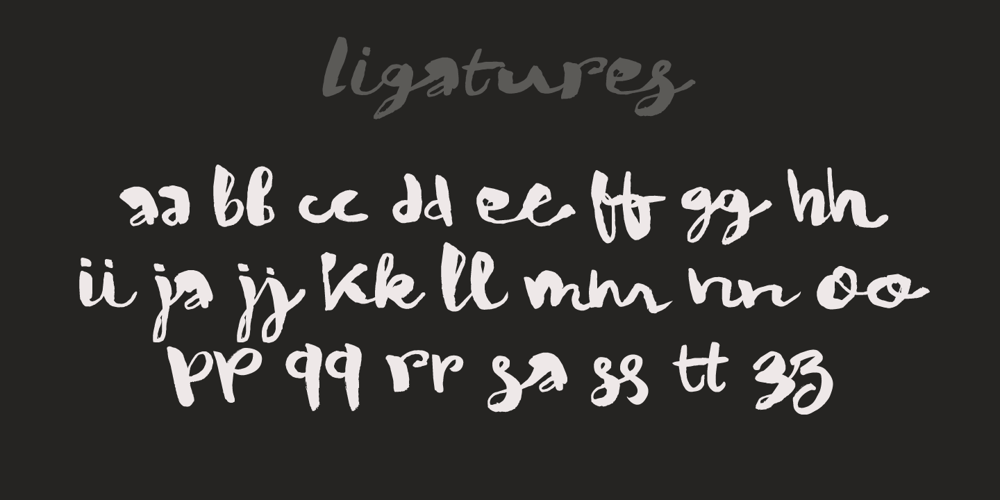
Winterberry
Winterberry font
Winterberry Font Family was designed by David Kerkhoff and published by Hanoded. Winterberry contains 2 styles and family package options. Winterberry (Ilex verticillata) is a species of holly, native to the USA and Canada. I thought it was a rather cool name (pun intended) for a messy script font made during a cold spell. Winterberry was created using Chinese ink and a crappy brush – hence its messy appearance. Use Winterberry on your alt-Christmas invitations, your fantasy novels, your rock albums or your website! You’ll love it! Comes with a bunch of diacritics and some ripe double letter ligatures as well.